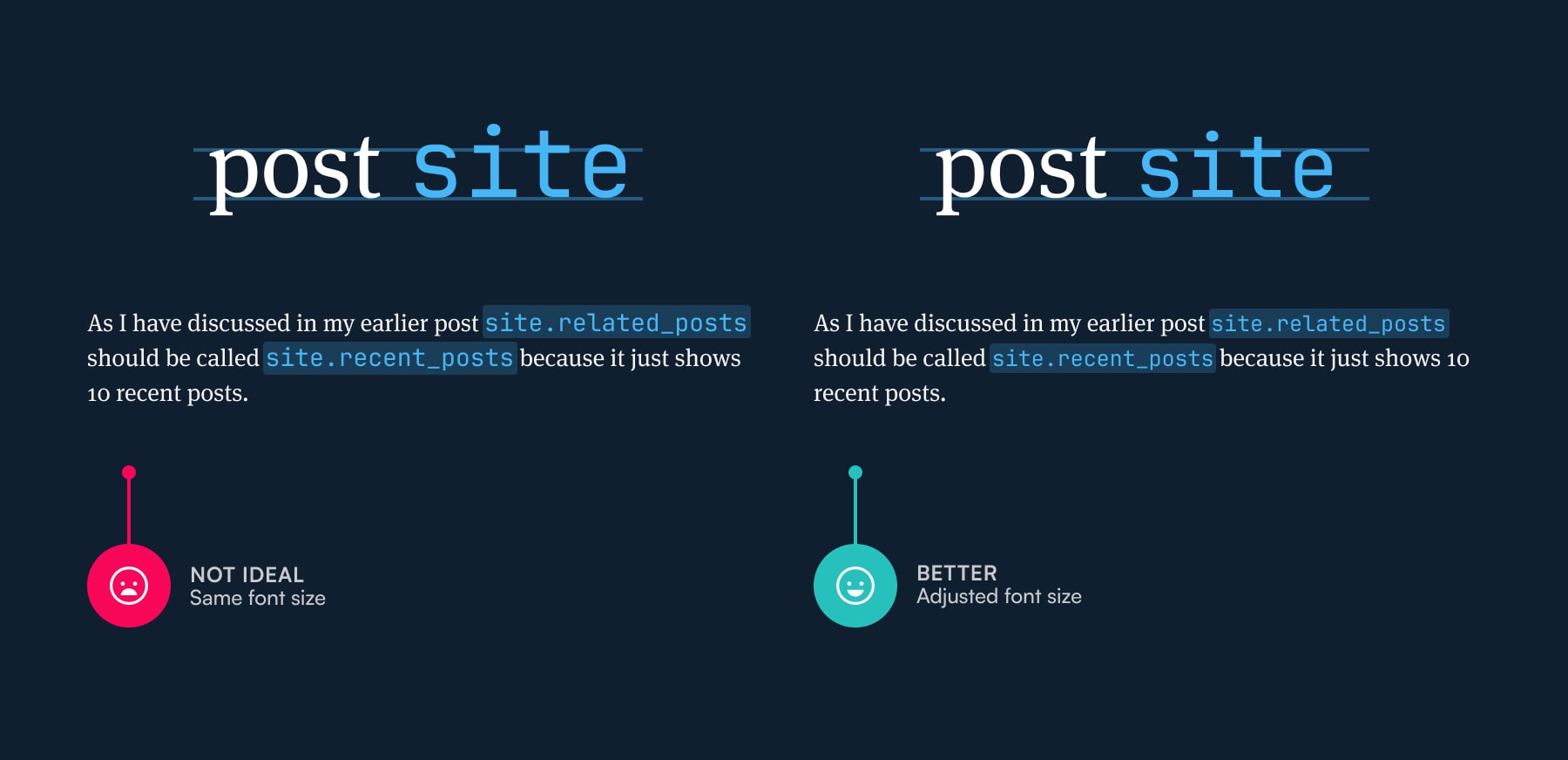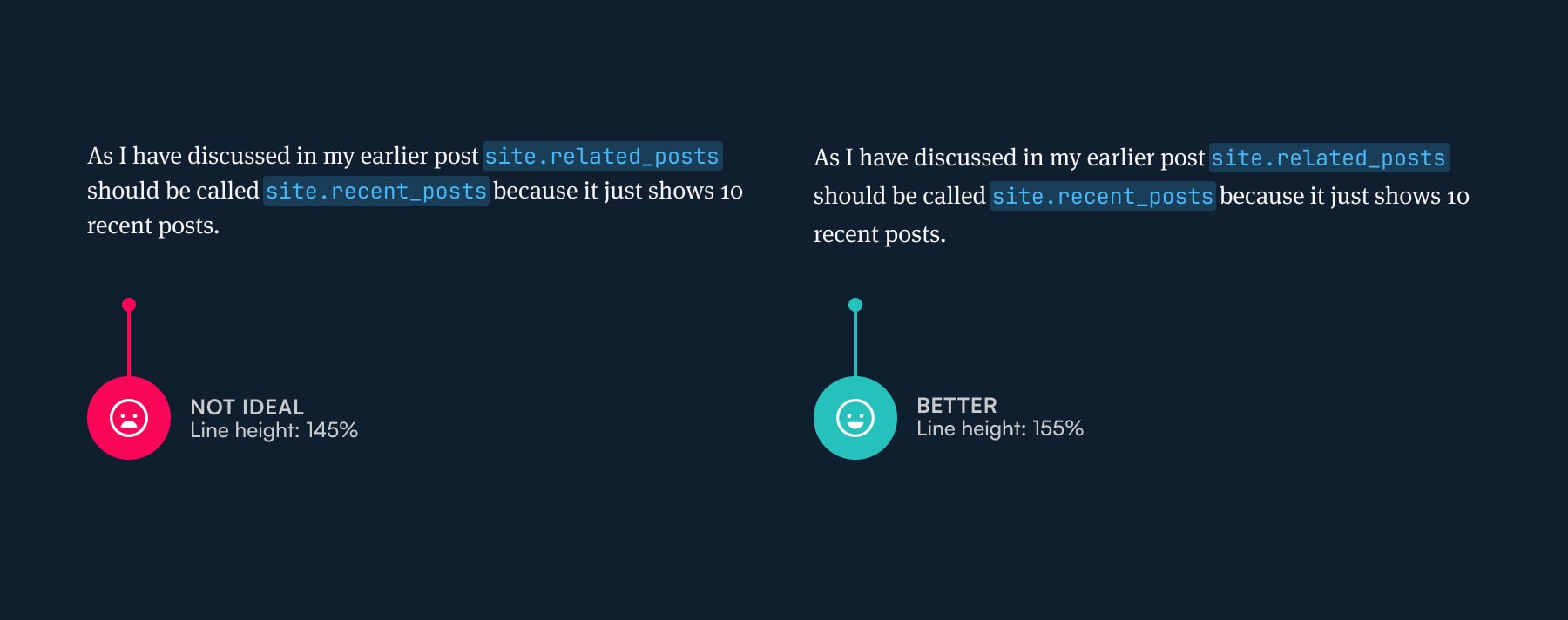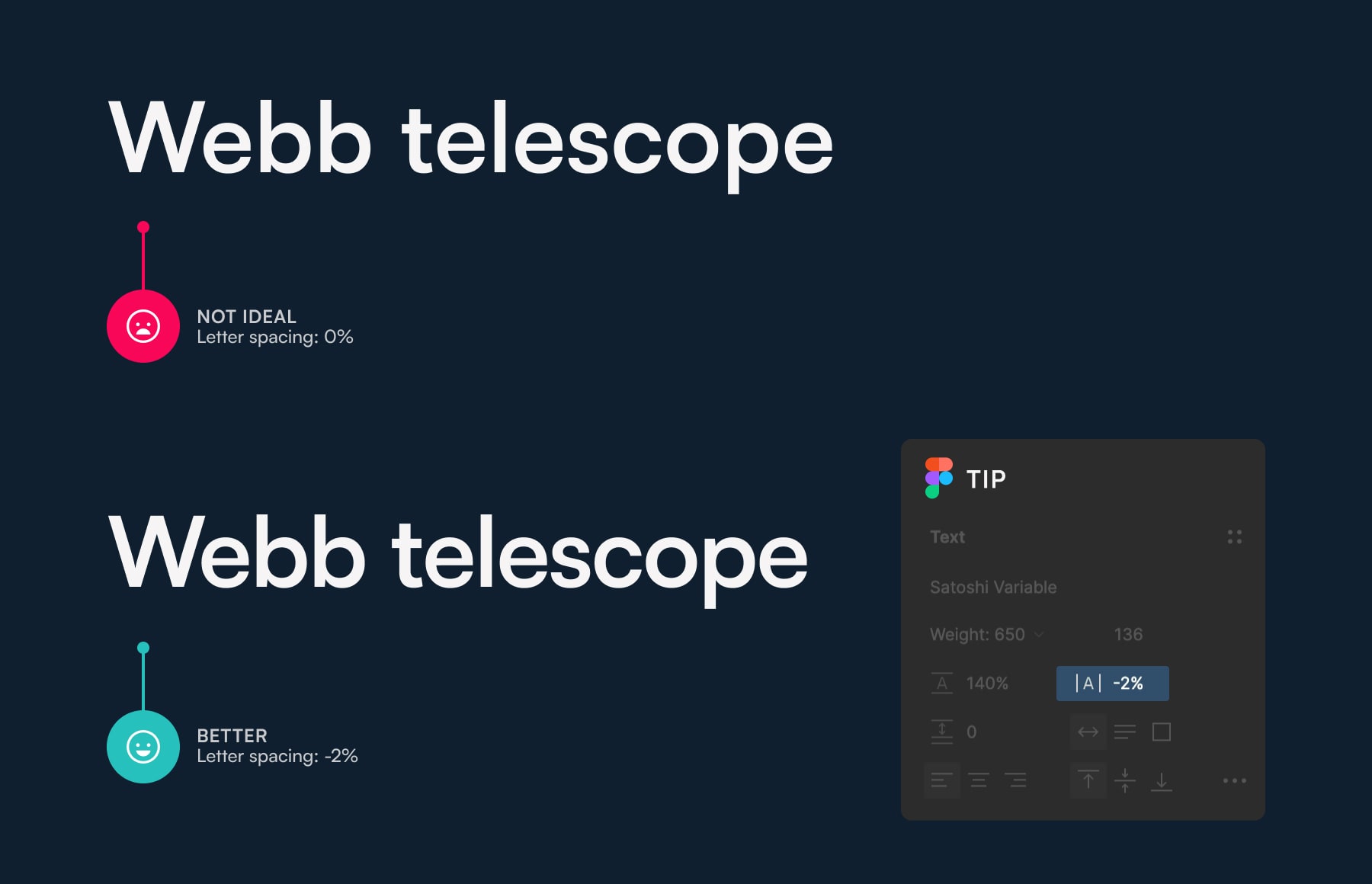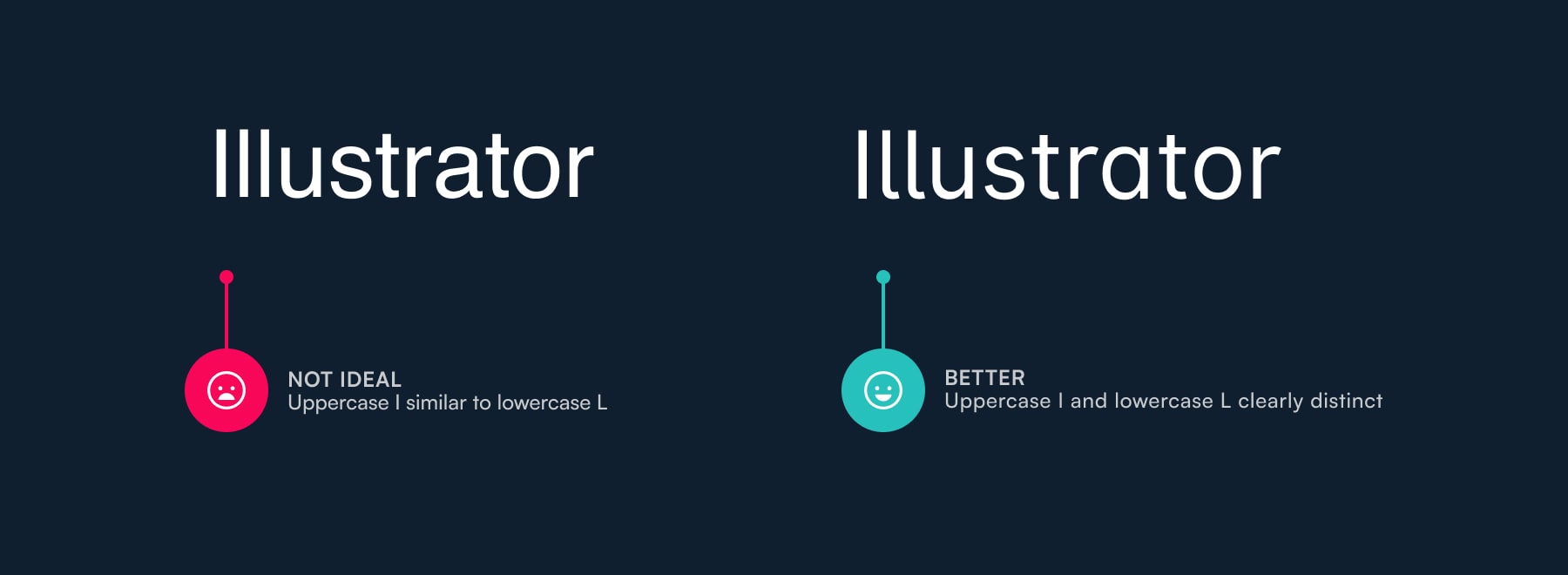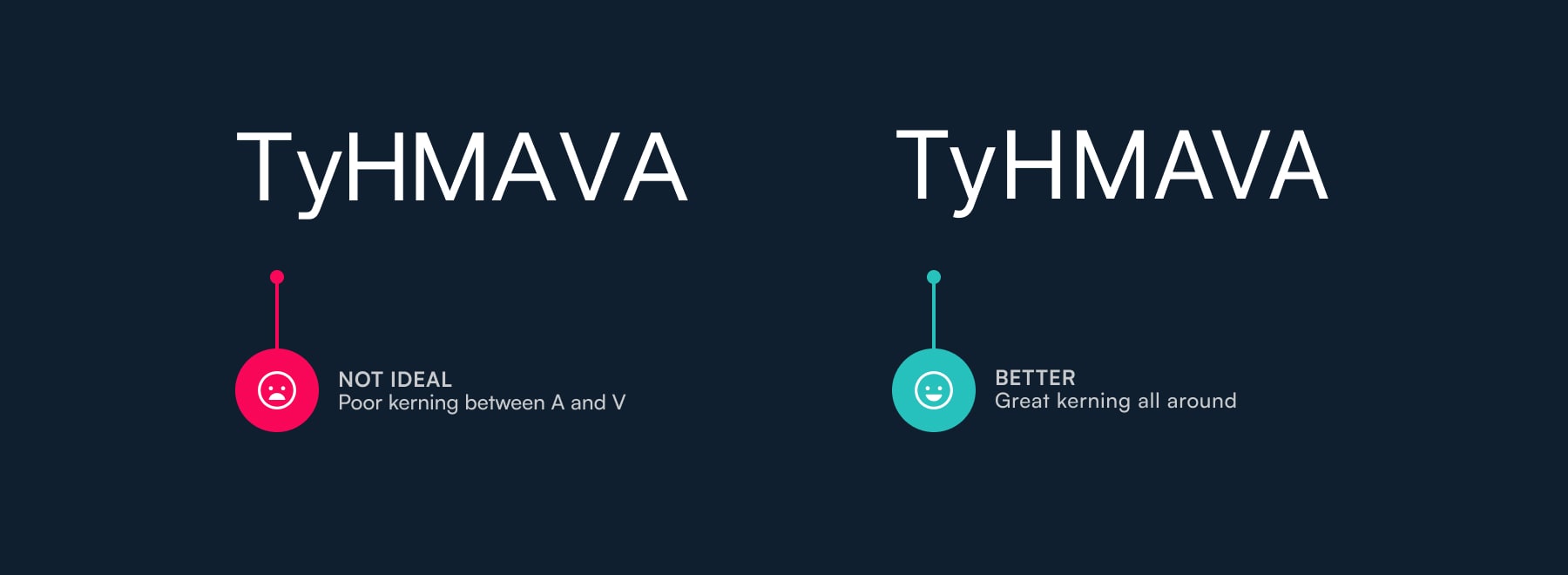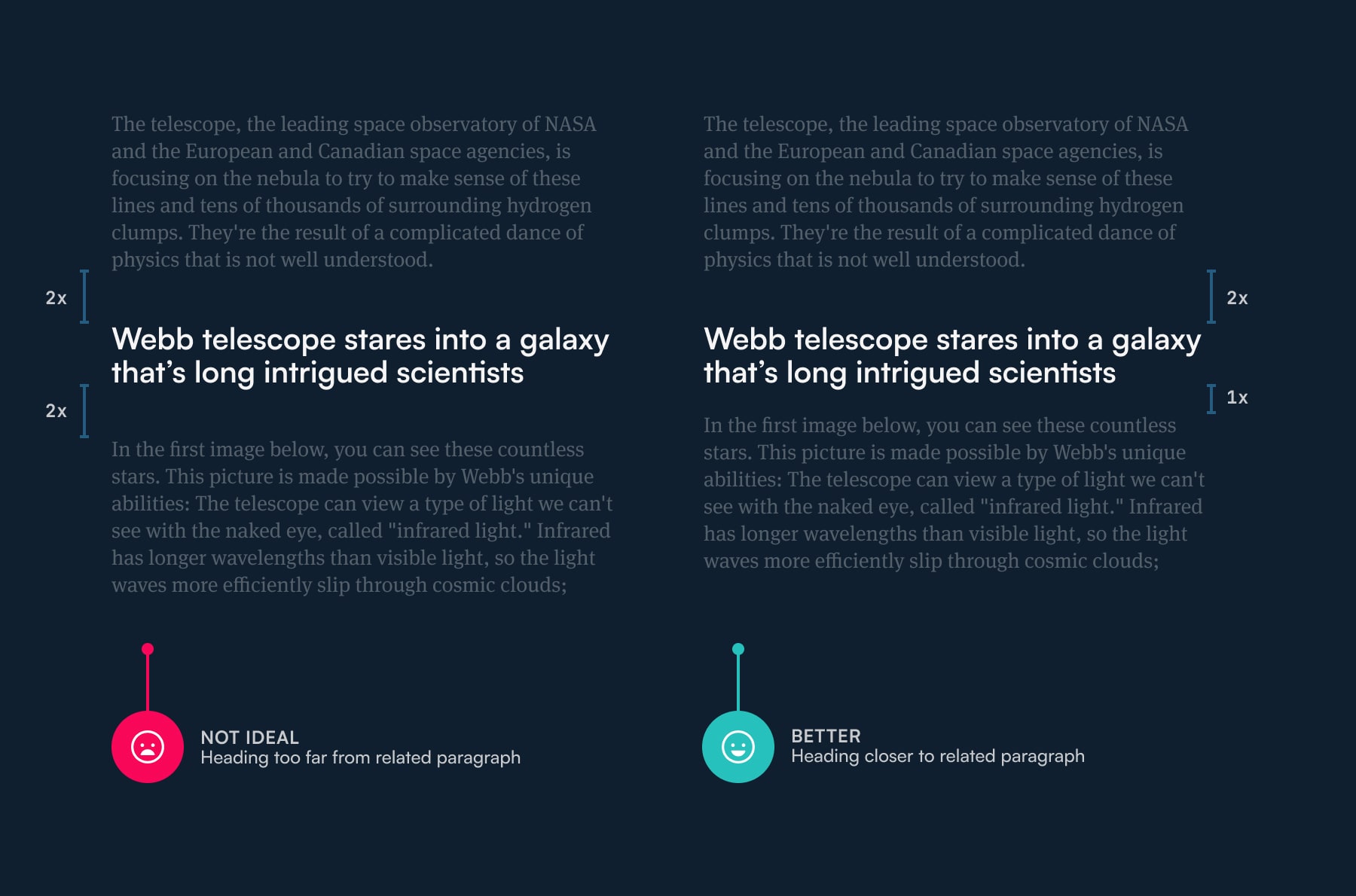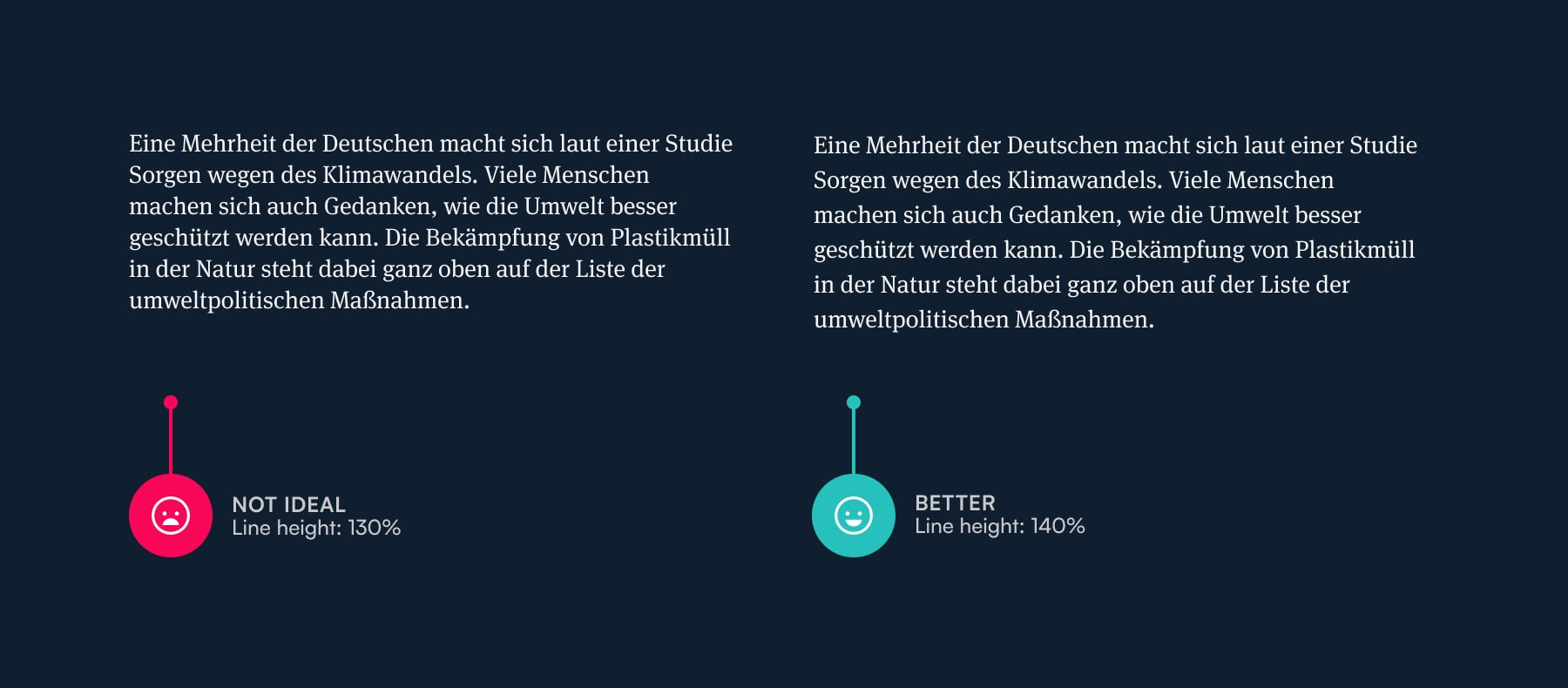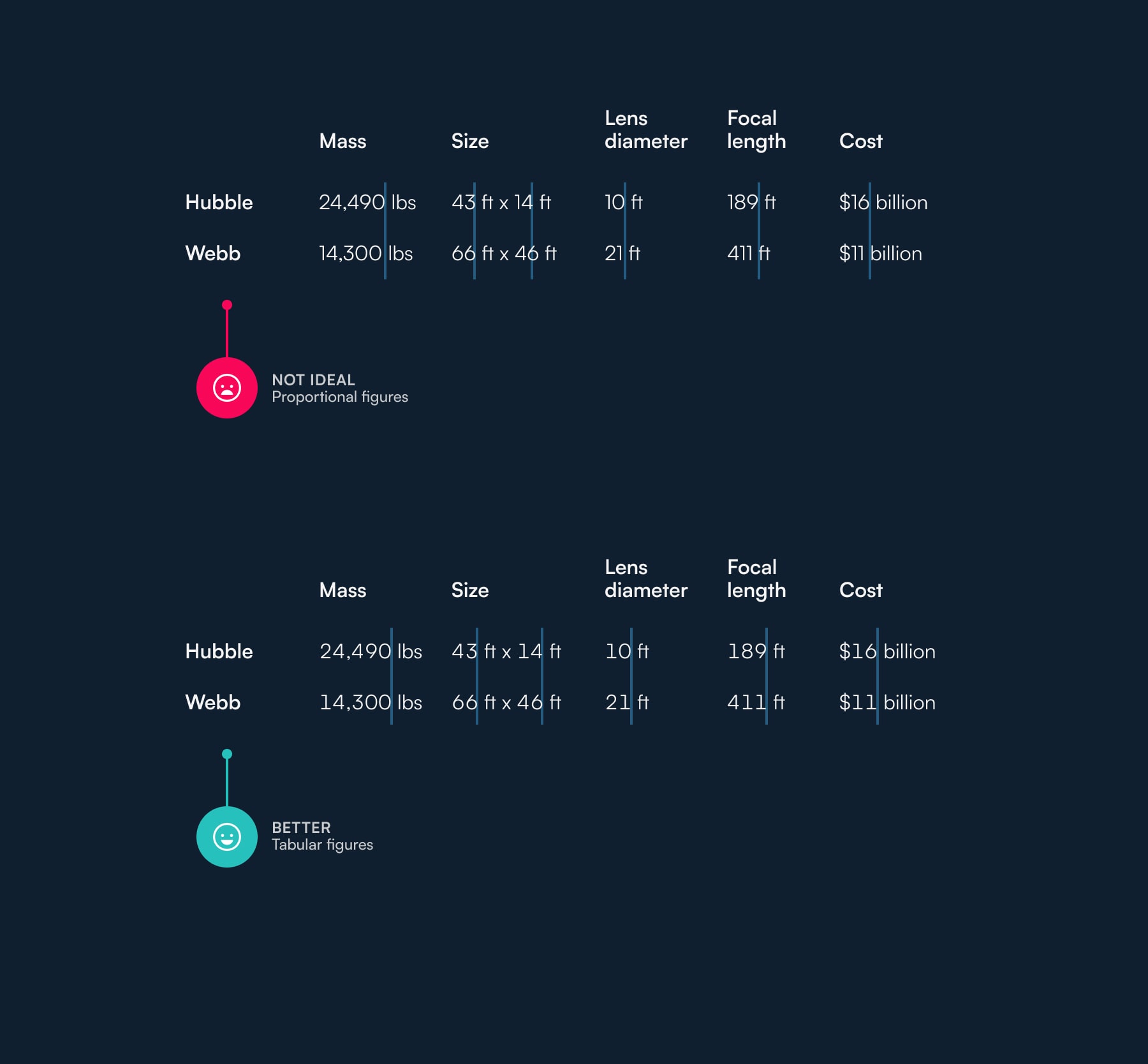
8 more micro tips in less than 8 minutes to make your typography stand out in excellence.
In case you missed it, there’s a part 1 of this two-part blog post series. I already mentioned there that typography is way more than just picking a font and setting font sizes. It’s more than these micro tips too, but these are great to get you started. In that post, I already gave you 8 micro tips to make your typography remarkable. Now I’ll give you 8 more in another 8 minutes. Let’s go!
1. Adjust font sizes when using different fonts inline to create a better reading experience
A lot of blogs use some sort of text snippets inline with their paragraph text. Code snippets are a great example of this. You want to make these snippets stand out a bit so that it’s easier for the reader to read and understand what you’re explaining. But these shouldn’t stand out too much. Literally and figuratively.
I’m using Meta Serif Pro and JetBrains Mono in the example below. JetBrains is obviously larger than Meta Serif (when they’re set at the same size). This results in a font standing out too much and in an unattractive way (left example in Fig 1). This is not what a professional, experienced designer would allow. To improve it, I reduced the size of JetBrains Mono from 14 pixels to 12 pixels. The font is heavier than Meta Serif so they pair really well even when the JetBrains’ size is reduced (right example if Fig 1).
<strong>Fig 1</strong>: Meta Serif Pro and JetBrains are different in size so JetBrains needs to be reduced a bit for them to match.
Fig 1: Meta Serif Pro and JetBrains are different in size so JetBrains needs to be reduced a bit for them to match.
2. Increase the line height if you use inline code snippets
The second tip is the perfect follow-up to the first one. To make the inline code snippets stand out a bit more (in a good way) they often come with a colour box around them. There’s a high chance that these boxes will clash between the lines of text (left example in Fig 2). It looks ugly even if they don’t clash but come close. To prevent that you should increase the line height of your text if you use inline code snippets (right example in Fig 2).
<strong>Fig 2</strong>: When the line height is increased the code snippets don’t clash and have “room to breathe.”
Fig 2: When the line height is increased the code snippets don’t clash and have “room to breathe.”
3. Using huge type is bold but you should reduce letter-spacing to make it beautiful
Huge type looks great when done right. I already wrote about huge type and how to use it on the web and how to do it well. The main thing for making huge type look beautiful is reducing the letter-spacing. The spacing between the letters in fonts is generally optimised for small sizes. It’s what fonts are most commonly used for.
So when you increase the font size considerably, it’ll suddenly look like there’s too much space between the letters. Take a look at the top example in the image below (Fig 3). It may look ok to an untrained eye, but look at the bottom example where letter-spacing has been reduced by 2%. It looks refined and polished. That’s because it looks more correct. This applies to titles that aren’t set in uppercase letters. The letter-spacing should be reduced by 1 to 2% maximum.
<strong>Fig 3</strong>: Spacing in fonts is optimised for smaller sizes. Reduced it when the font is used at large sizes.
Fig 3: Spacing in fonts is optimised for smaller sizes. Reduced it when the font is used at large sizes.
4. Check the legibility of the font to ensure good readability of your text
Let’s establish the difference between legibility and readability first.
Legibility is an informal measure of how easy it is to distinguish one letter from another in a particular typeface.
Readability is about the reader – the ease with which a reader can successfully decipher, process, and make meaning of the text read.
— Source
Helvetica, one of the most popular fonts out there, scores poorly on legibility because a lot of its characters aren’t distinct enough. A good quick way to check the legibility of a font’s key letters is to check the letters “1lI O0.” If they’re too similar, they’re not very legible. Take a look at the examples of “Illustrator” below (Fig 4). On the left, a font with poor legibility is used, on the right a better font is used. Make sure you check this whenever choosing a font or the readability of your text might suffer.
<strong>Fig 4</strong>: Test fonts for legibility when picking them. Use “1lI O0” for a quick check.
Fig 4: Test fonts for legibility when picking them. Use “1lI O0” for a quick check.
5. Check the kerning of the font when you’re deciding which one to use
Kerning is the spacing between letters in a font. Unlike letter spacing (from the tips before) you can’t control this one. It’s embedded in the design of the font. All you can do is enable or disable it. But some fonts come with poor kerning and you need to watch out for that.